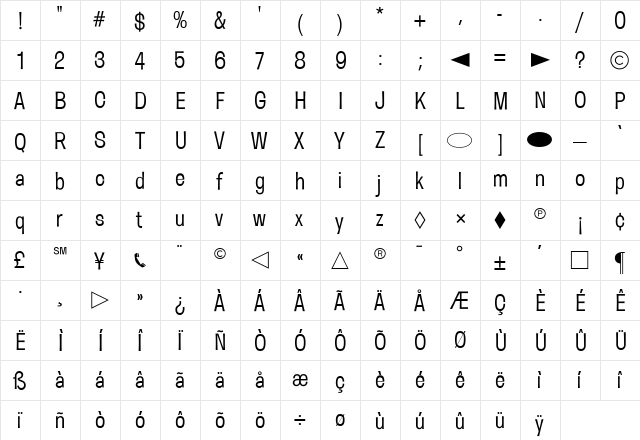
CgWesterveldtLt Medium
CgWesterveldtLt is a composed and adaptable typeface that performs quietly and consistently across a wide range of design contexts.